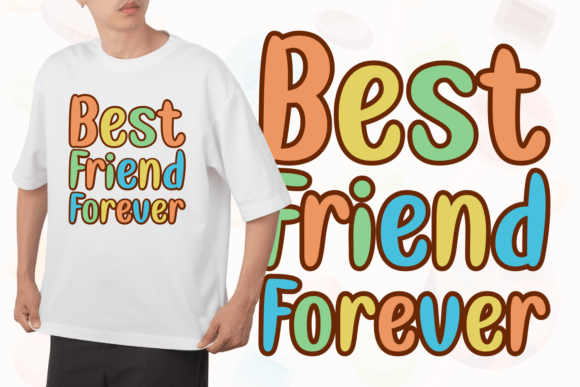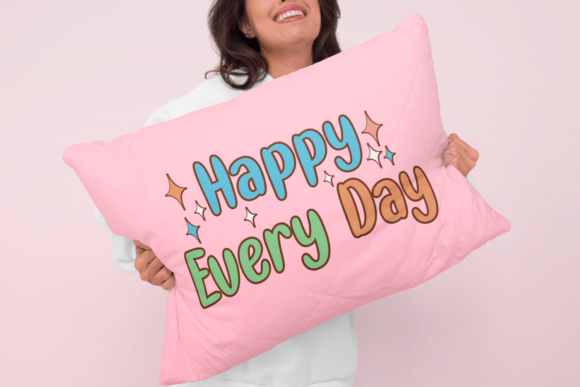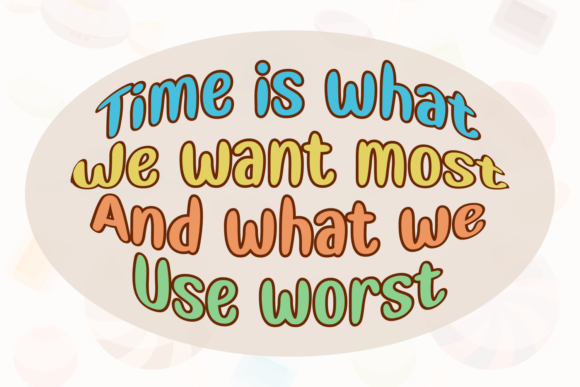
Better Candy Font
Better Candy, is a display font that playfully dances with groovy charm. This bold font captures the essence of chic retro style dressed up with a modern appeal. Imagine a love letter to the 80s, this font proudly flaunts a nostalgic nod to the past while fearlessly embracing the current trends. With its smooth finish and unique design, Better Candy effortlessly transforms from a casual font into something extra cute, making it an ideal choice for embroidered crafts or trendy t-shirts. Its versatility excels in creating stylish visuals, all the way from cool banners to unique kids’ designs and summer posters. Better Candy’s stylish nature shines in holiday cards or love symbols, adding a pretty and somewhat funny twist to your creations. This simple yet effective font provides the aesthetics of a unique, stylish, and fashionable text with a dose of fun added in. Spark your creativity and captivate your audience with the bold and beautiful Better Candy.